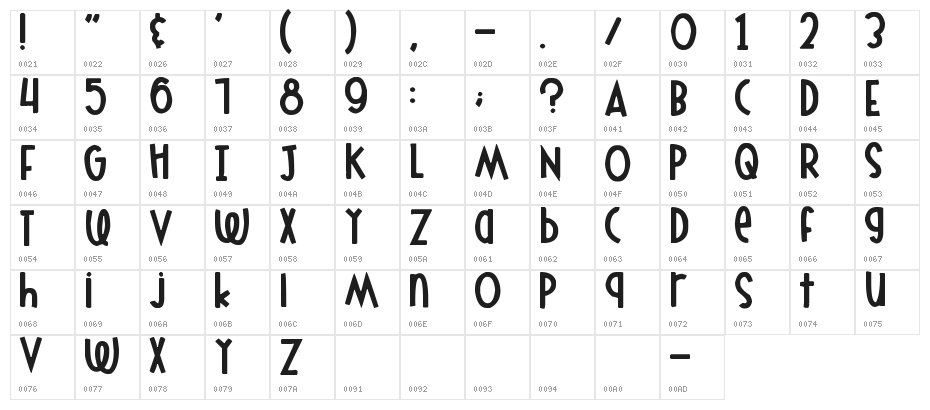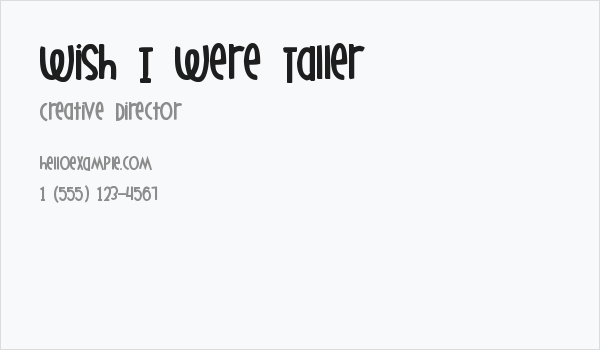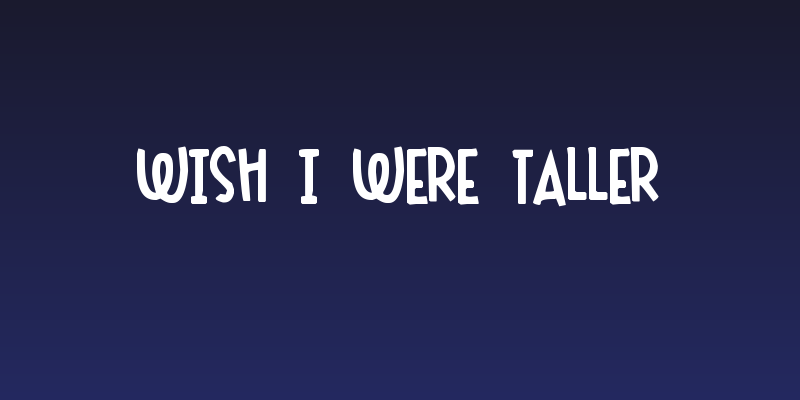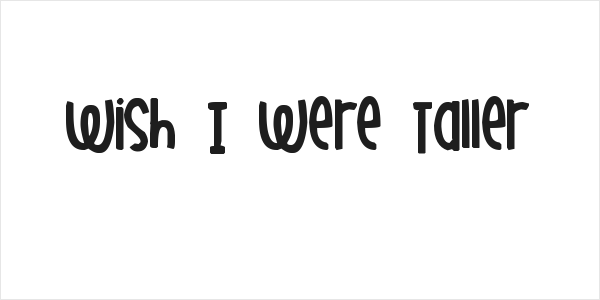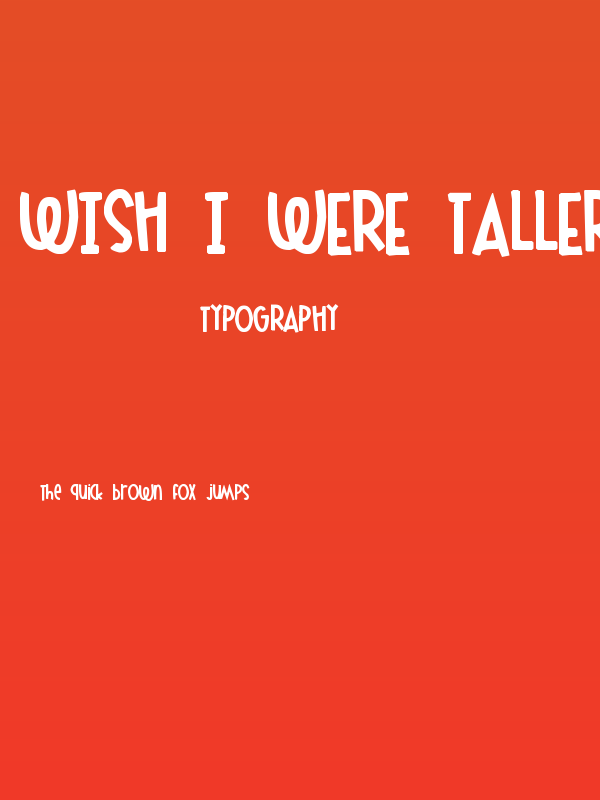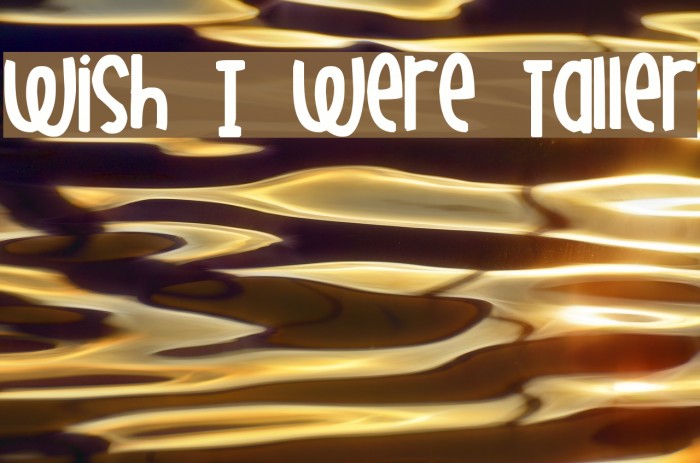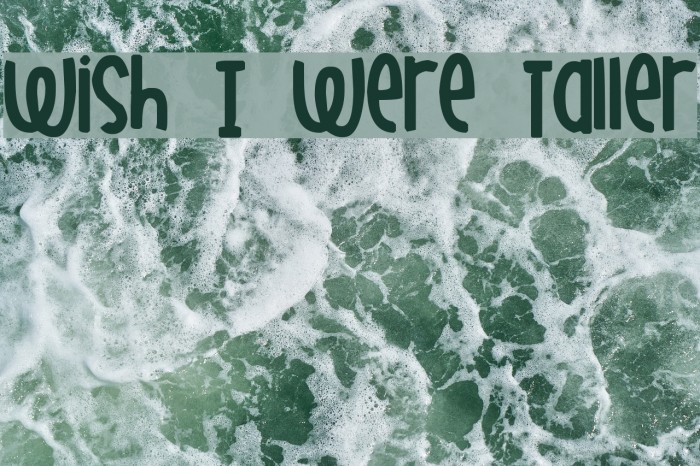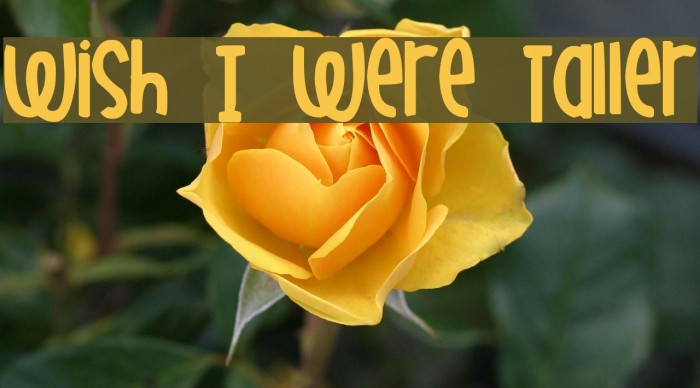
Wish I Were Taller Font
| Style général | Playful, Whimsical |
| Cas d'utilisation | Headlines, Logos, Creative Displays |
| Projets proposés | Ideal for children's books, playful branding, creative posters, and artistic invitations. |